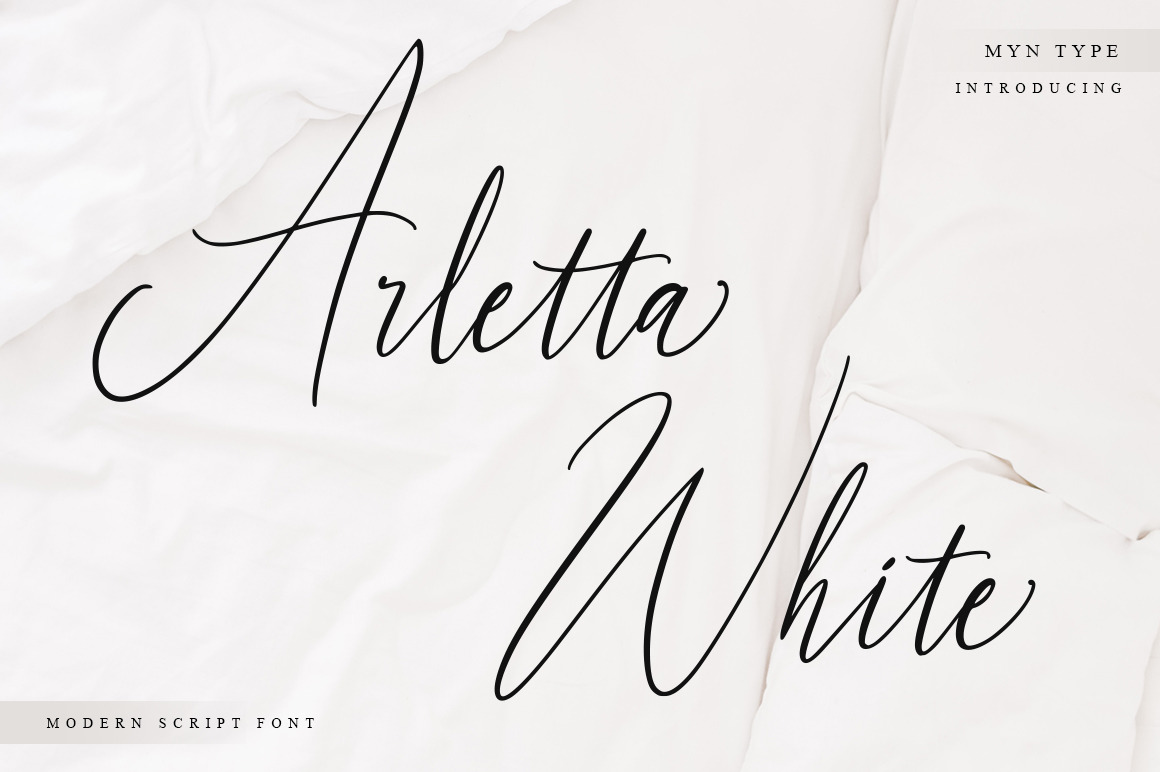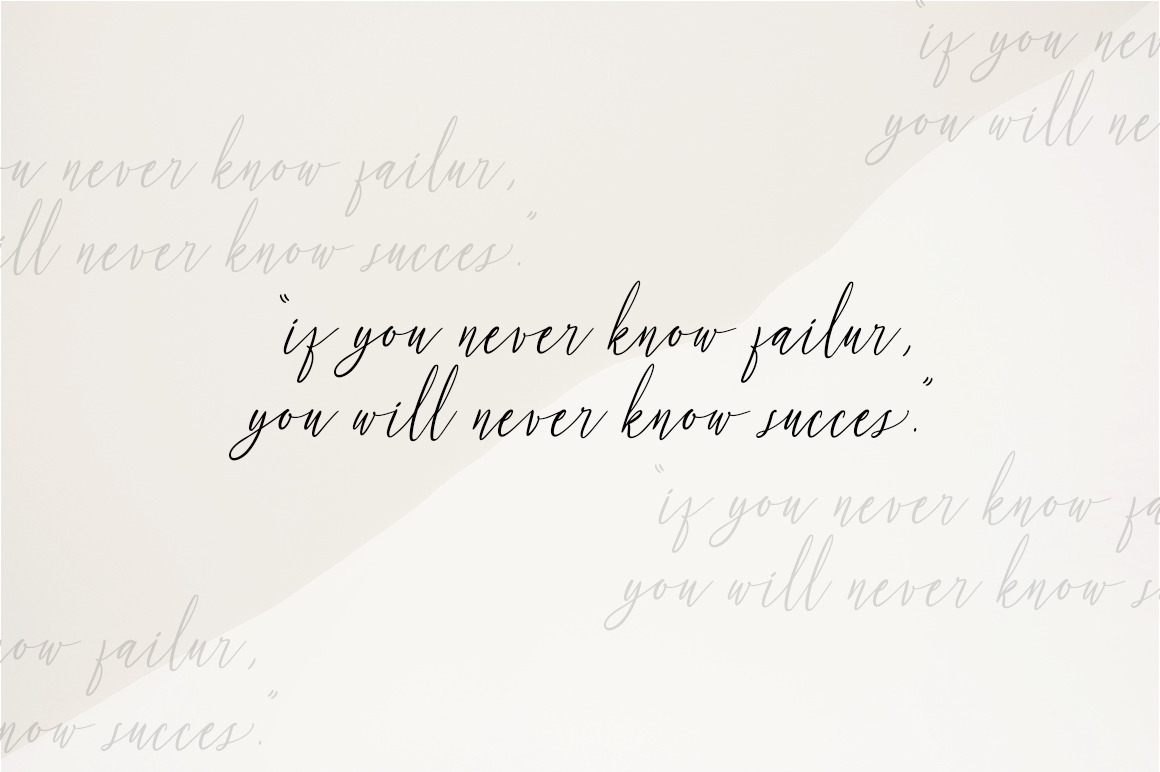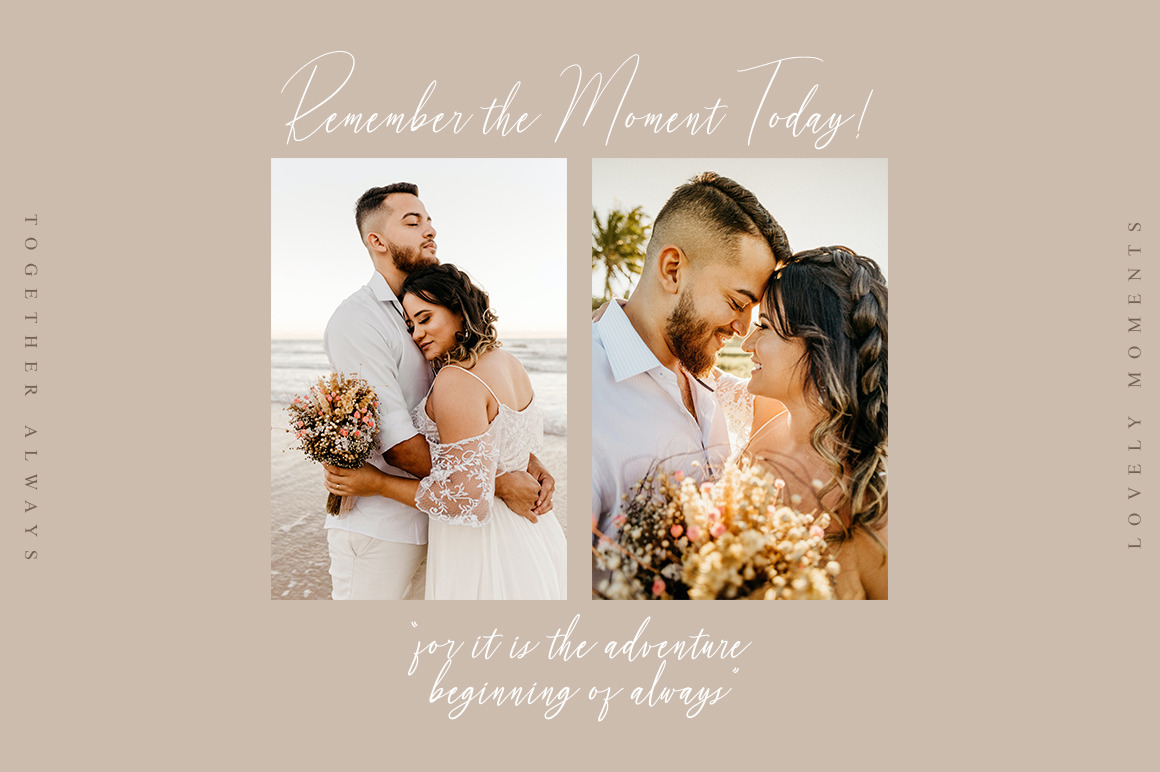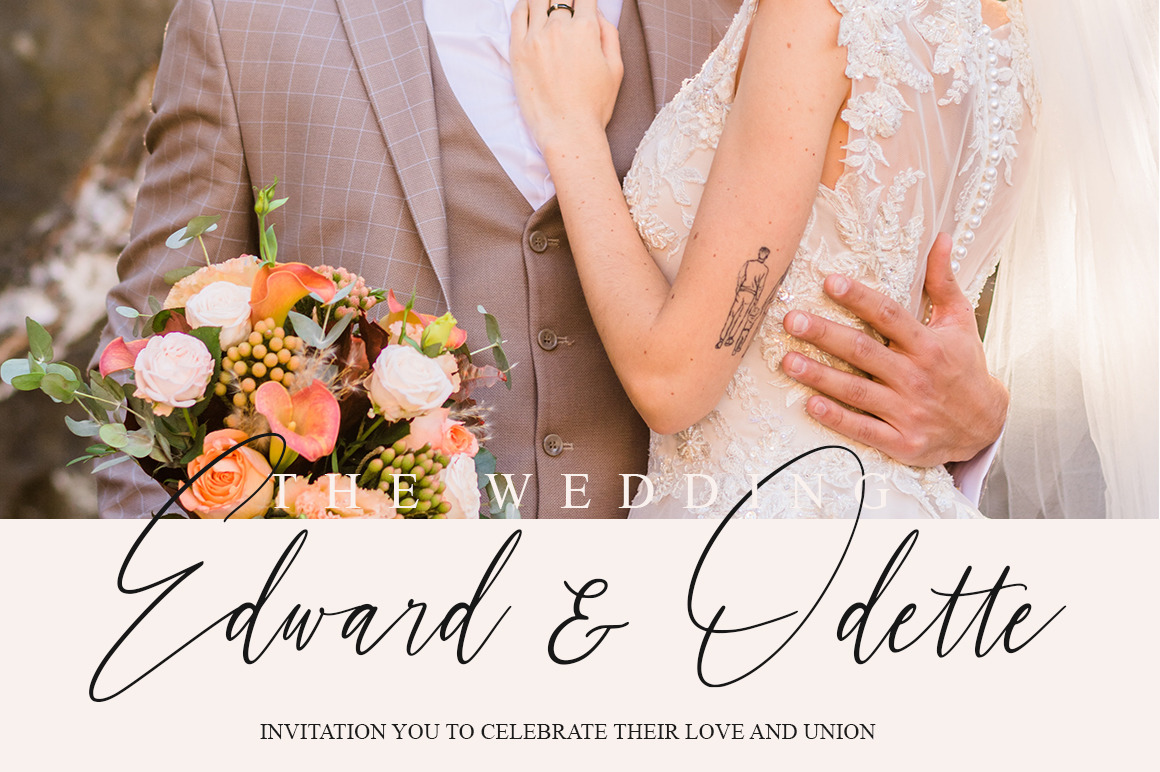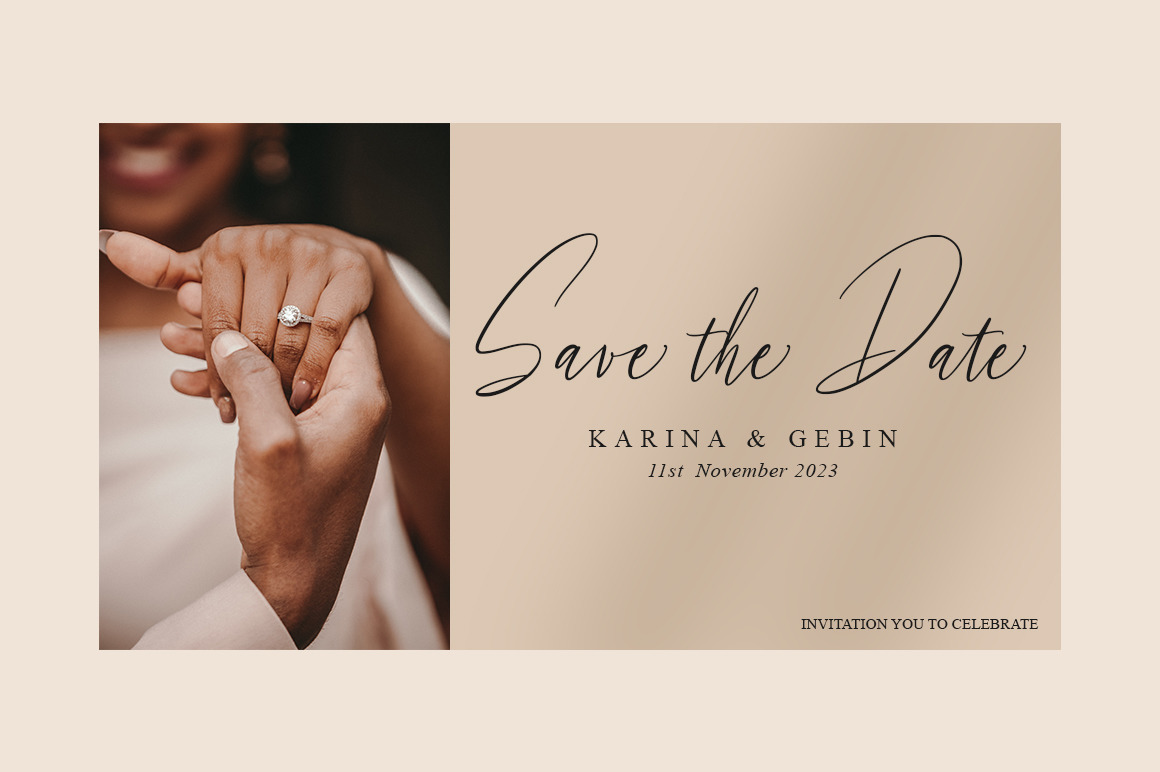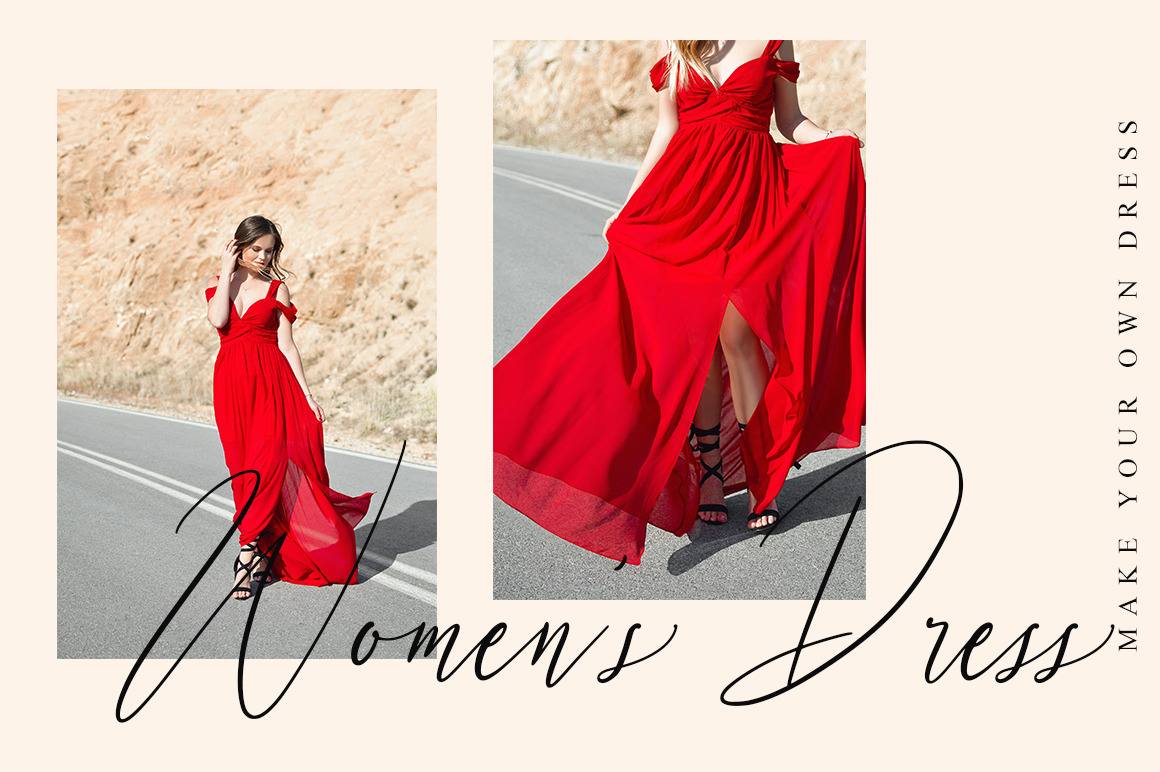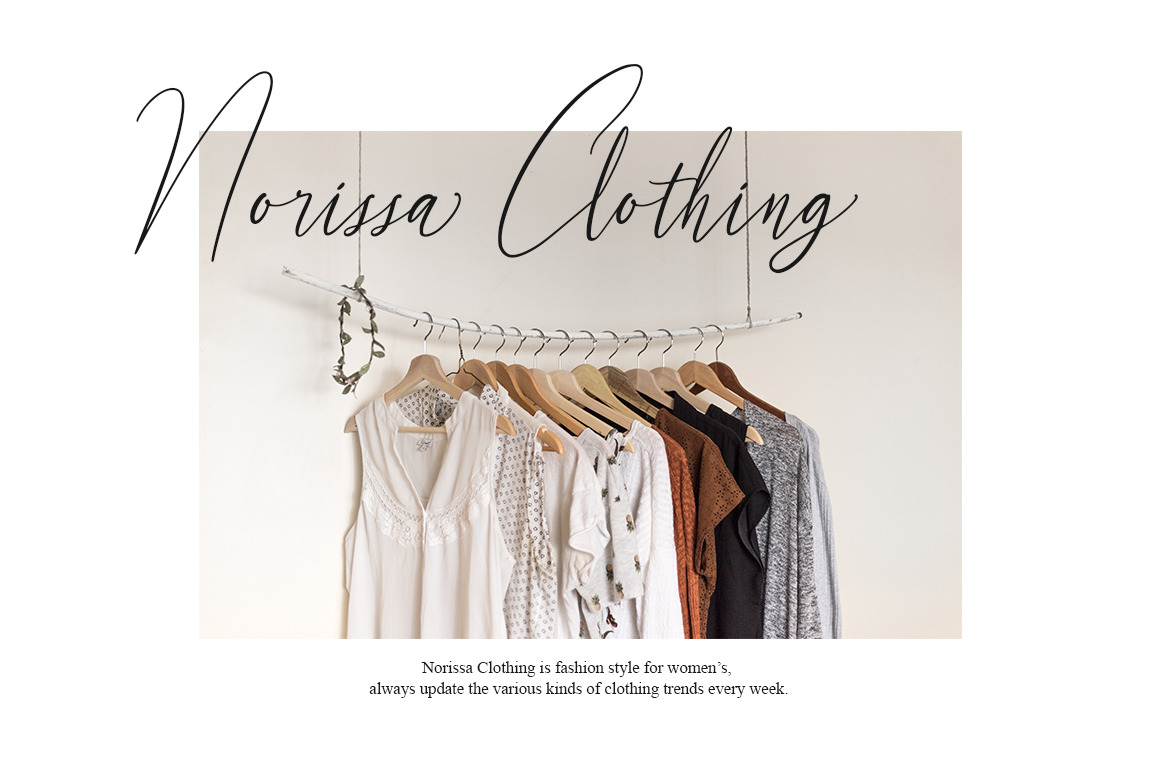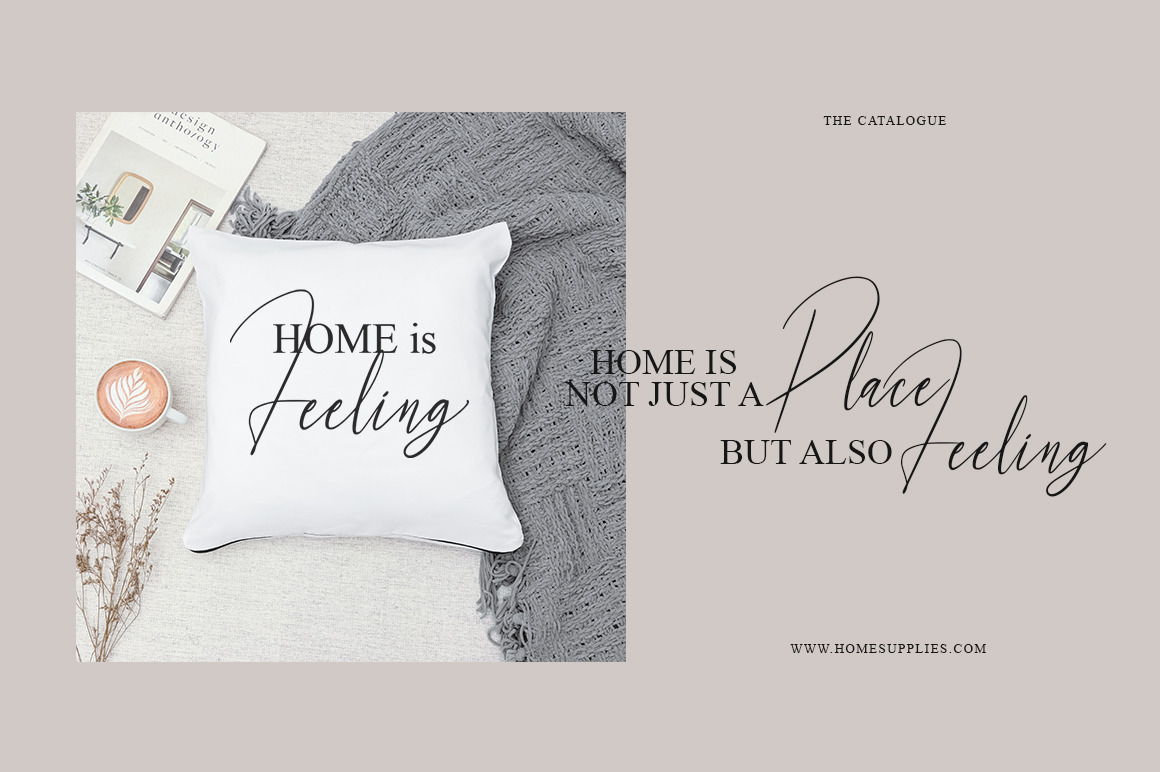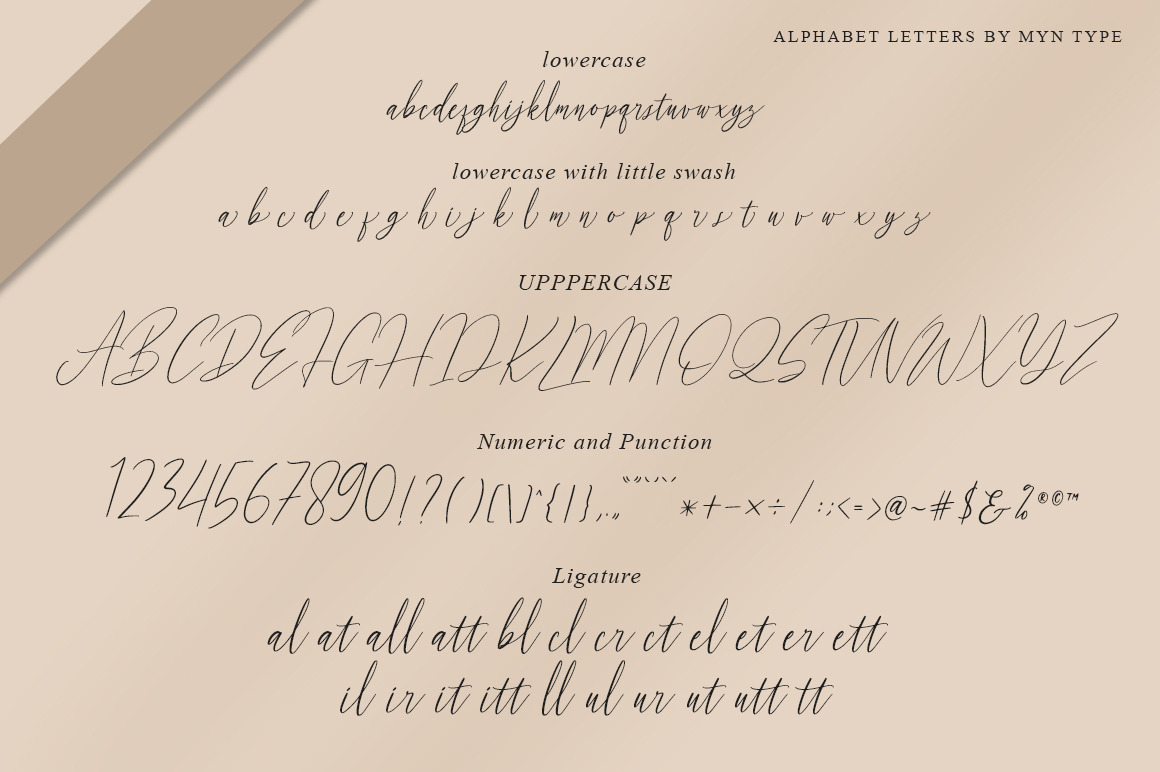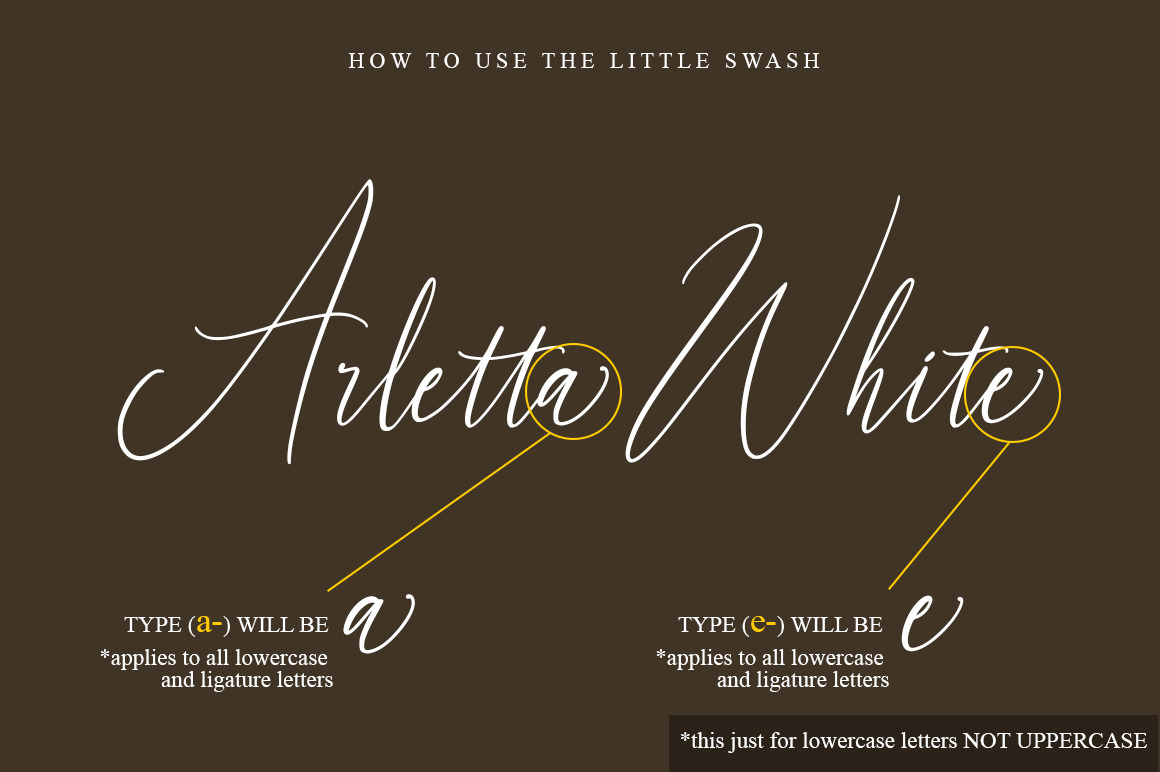
Arletta White Font
Arletta White is a modern calligraphy script. perfect for wedding invitations, calligraphy logos for branding, elegant websites, gifts, social media posts or simply to use to express words over a background and anything else your heart desires!